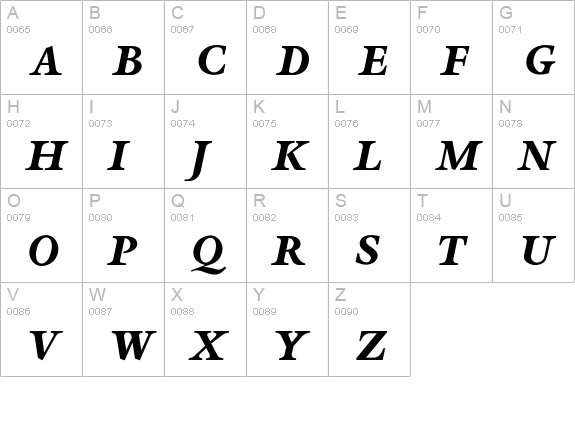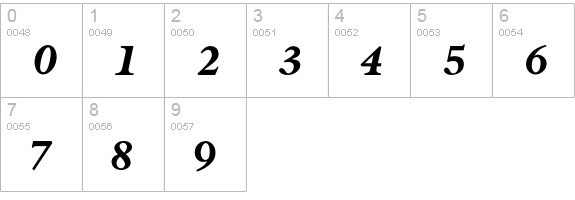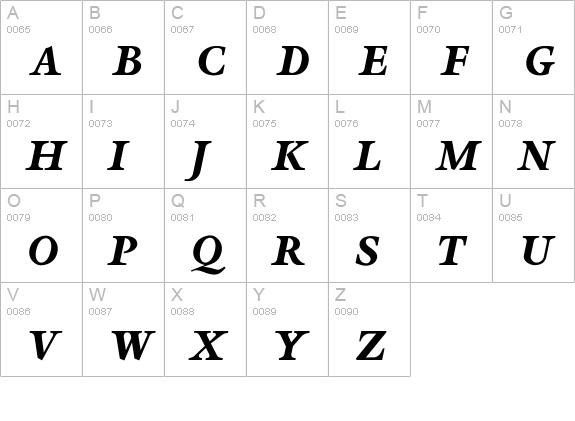
Sevilla Font Details
Sevilla font is a stunning display typeface that exudes elegance and sophistication. With its graceful curves and stylish letterforms, this font is perfect for adding a touch of class to any project. Whether it's for a logo, a headline, or a wedding invitation, Sevilla font will make a lasting impression. What makes Sevilla font even more appealing is that it is free. Yes, you read that right! This exquisite font is freely available to download at FontsMarket.com. Now you can enhance your designs without worrying about breaking the bank. The versatility of Sevilla font is truly remarkable. It can effortlessly adapt to various design styles and themes, from vintage to modern, making it a must-have for designers of all backgrounds. Its legibility and unique character make it suitable for both print and digital applications. Sevilla font's attention to detail is evident in every letter, making it a joy to work with. Its smooth and flowing lines create a harmonious balance, while its sharp serifs add a touch of sophistication. With a wide range of weights and styles available, you have the freedom to experiment and create your own unique compositions. Whether you're a professional designer or an aspiring creative, Sevilla font is a valuable addition to your font library. Its timeless beauty and accessibility make it a go-to choice for a wide range of projects. So why wait? Head over to FontsMarket.com now and download Sevilla font for free. Let your designs shine with this remarkable typeface.